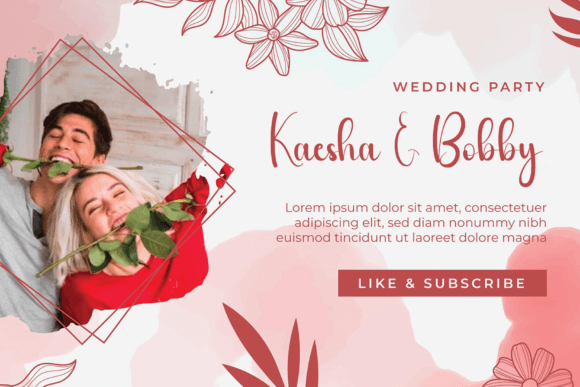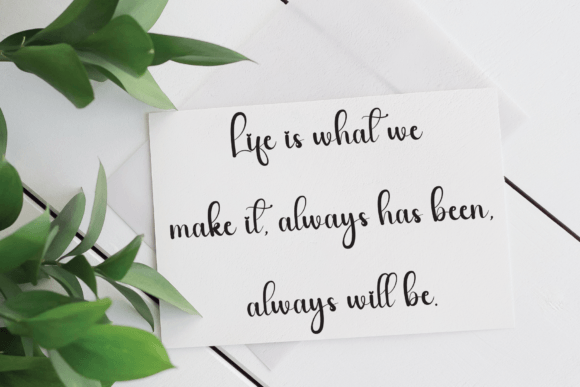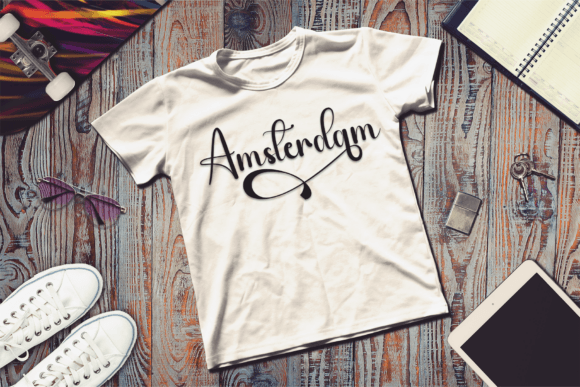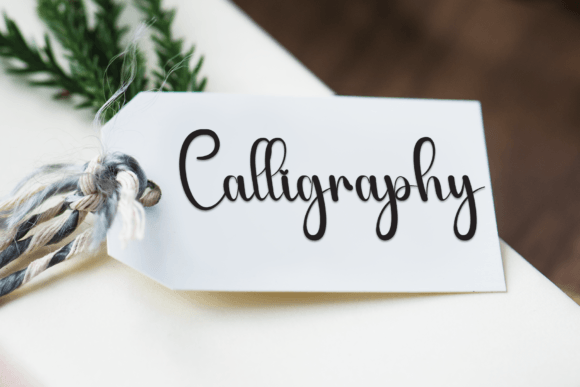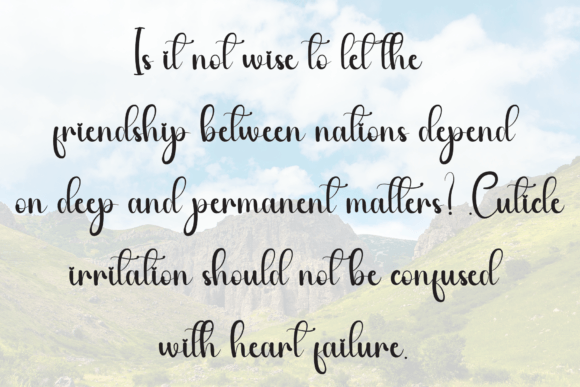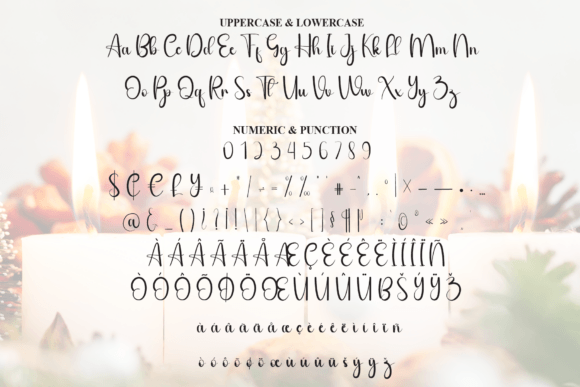
Candles Christmas Font: The Perfect Addition to Your Holiday Designs
The holiday season is upon us, and with it comes the need for festive and fun designs that capture the spirit of Christmas. For designers and crafters, finding the right font can make all the difference in creating a cohesive and visually appealing design. That’s where Candles Christmas Font comes in – a warm, handwritten script font that embodies the cozy and personal touch of the holiday season.
What is Candles Christmas Font?
Candles Christmas Font is a charming, handwritten script font that is specifically designed to evoke the feeling of a warm and cozy Christmas. Its flowing letters and gentle curves give it a personal touch that is perfect for Christmas cards, decorations, and any seasonal design. The font is designed to be easy to read and use, making it a great addition to any design project.
Features of Candles Christmas Font
Candles Christmas Font has several features that make it a great choice for holiday designs. Some of its key features include:
• Warm and inviting: The font has a warm and inviting feel that is perfect for creating a cozy and festive atmosphere.
• Handwritten script: The font is a handwritten script font, which gives it a personal and unique touch.
• Easy to read: The font is designed to be easy to read, making it perfect for use in a variety of design projects.
• Versatile: The font can be used in a variety of design projects, from Christmas cards and decorations to website headers and social media graphics.
Uses for Candles Christmas Font
Candles Christmas Font is a versatile font that can be used in a variety of design projects. Some of the most popular uses for the font include:
• Christmas cards: The font is perfect for creating festive and fun Christmas cards that are sure to delight friends and family.
• Holiday decorations: The font can be used to create festive holiday decorations, such as garlands, banners, and signs.
• Website headers: The font can be used to create festive website headers that are sure to get visitors in the holiday spirit.
• Social media graphics: The font can be used to create festive social media graphics that are sure to stand out.
Tips for Using Candles Christmas Font
Here are a few tips for using Candles Christmas Font in your design projects:
• Pair with other festive fonts: Pair Candles Christmas Font with other festive fonts to create a unique and visually appealing design.
• Use in combination with images: Use Candles Christmas Font in combination with festive images, such as holly, snowflakes, or Christmas trees, to create a cohesive design.
• Experiment with colors: Experiment with different colors, such as red and green, to create a festive and fun design.
Candles Christmas Font is a warm and inviting font that is perfect for capturing the spirit of the holiday season. Its charming, handwritten script and flowing letters give it a cozy and personal touch that is sure to delight. Whether you’re a designer or crafter, Candles Christmas Font is a great addition to any design project. So why not give it a try and see how it can add a touch of festive fun to your designs?
In conclusion, Candles Christmas Font is a must-have font for anyone looking to create festive and fun holiday designs. Its versatility, ease of use, and charming design make it a great choice for designers and crafters alike. So go ahead, get creative, and make this holiday season one to remember with Candles Christmas Font!